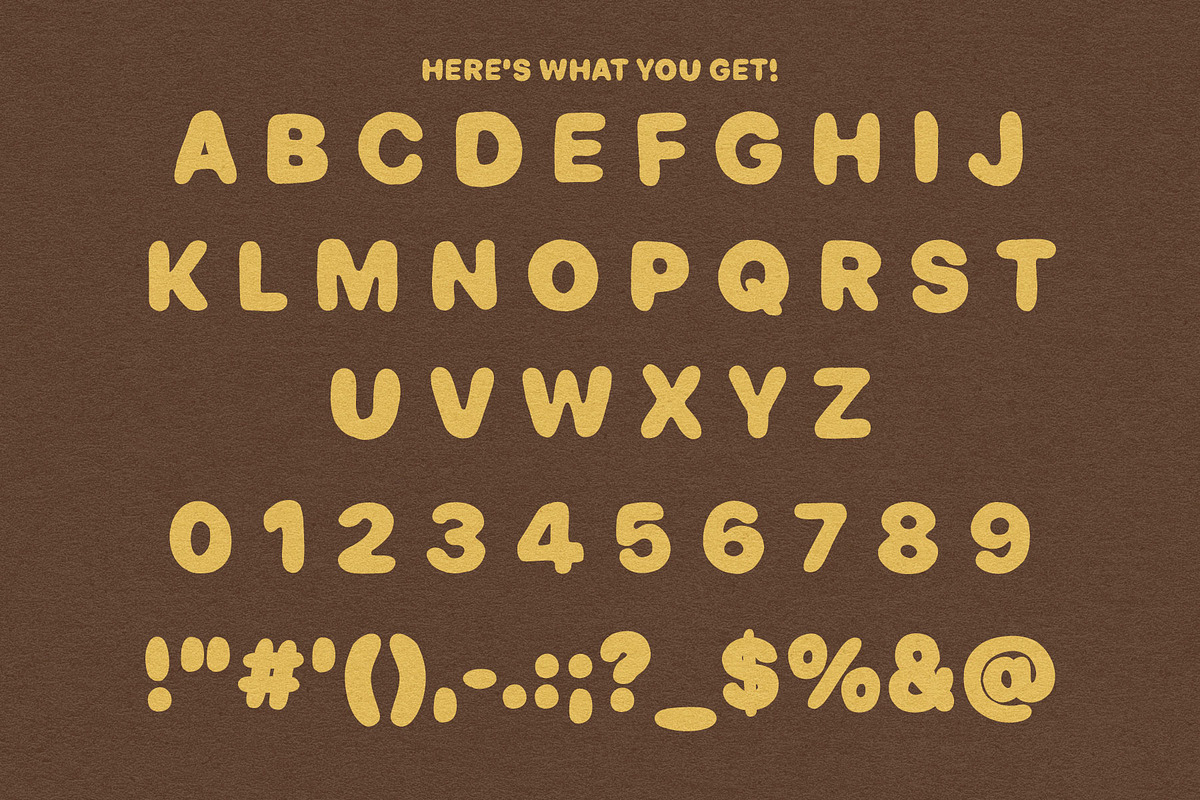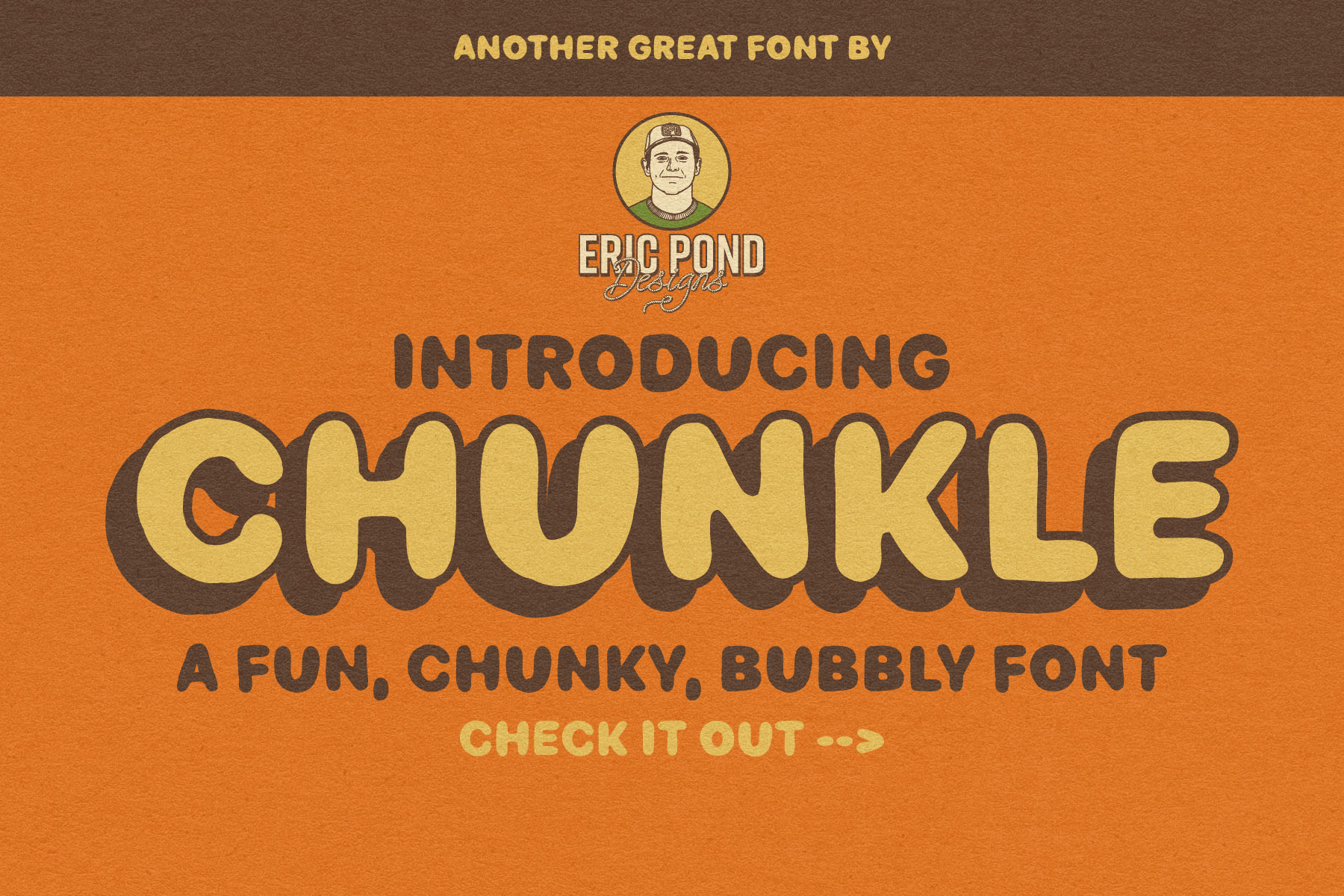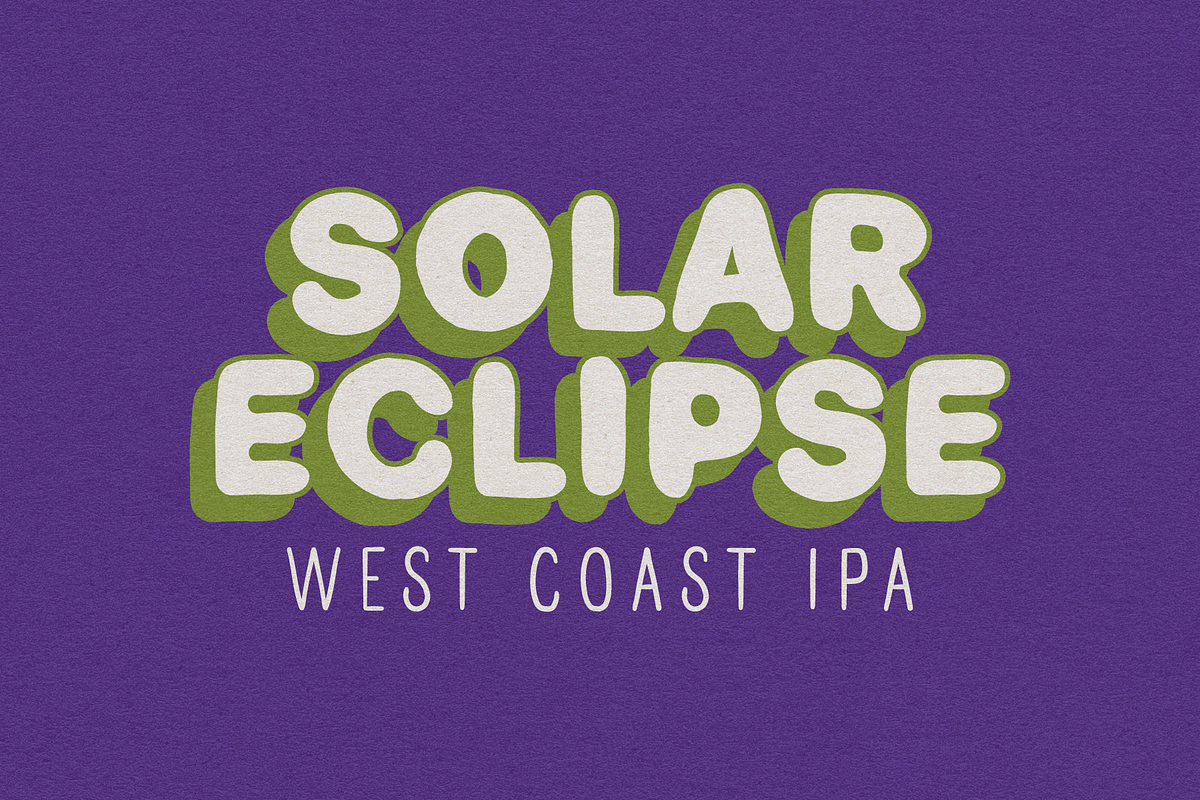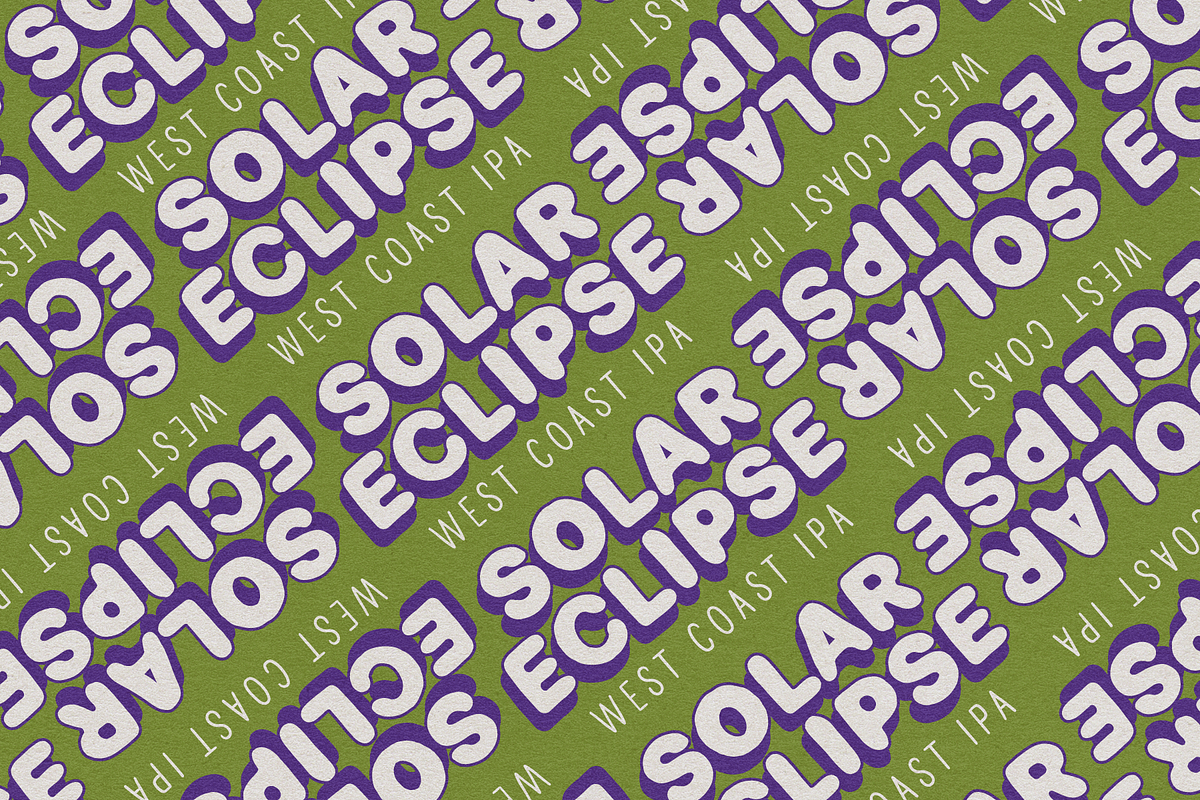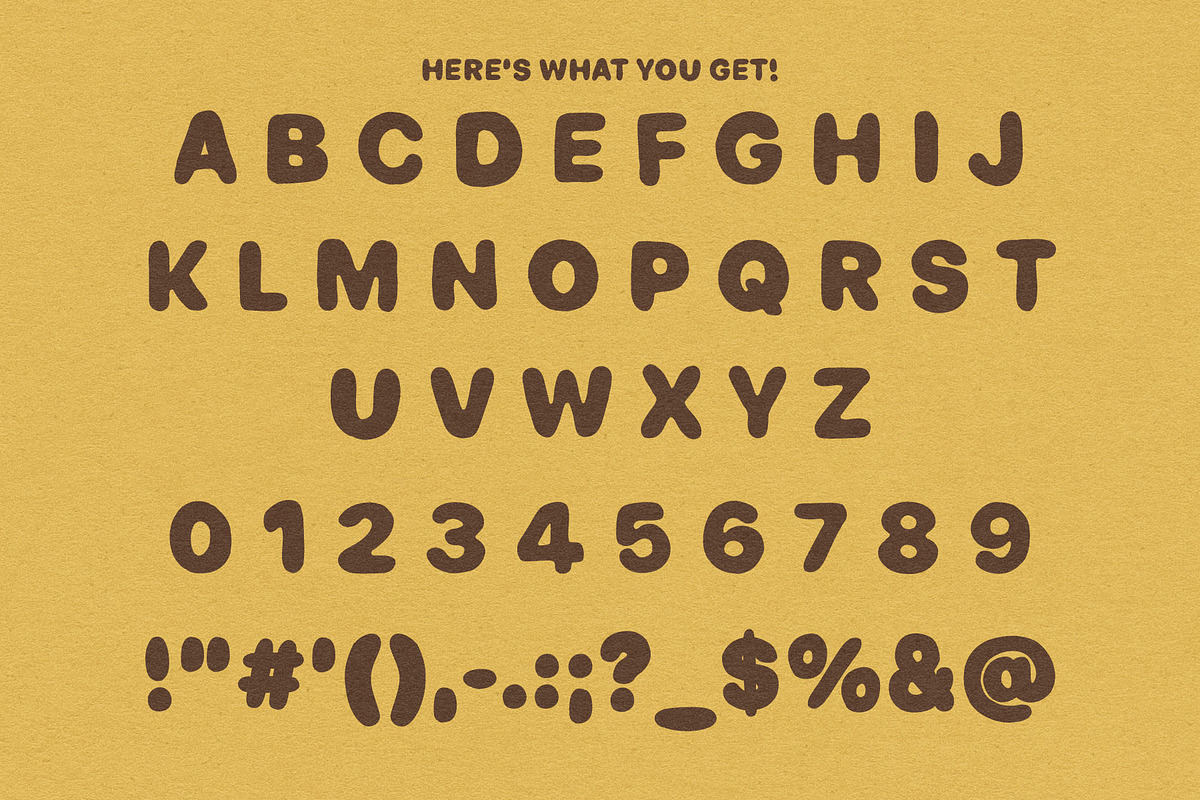
Chunkle - A Fun, Chunky, Bubbly Font
Introducing Chunkle! A fun, Chunky, bubbly font from Eric Pond Designs! This font includes uppercase, numbers and some punctuation.